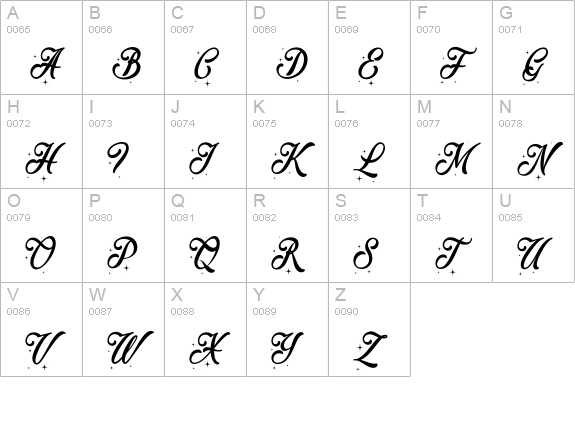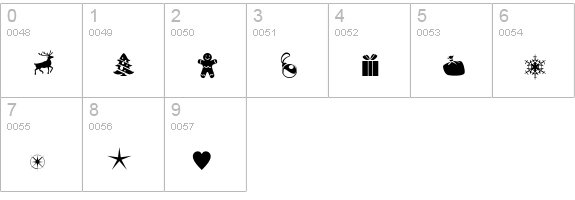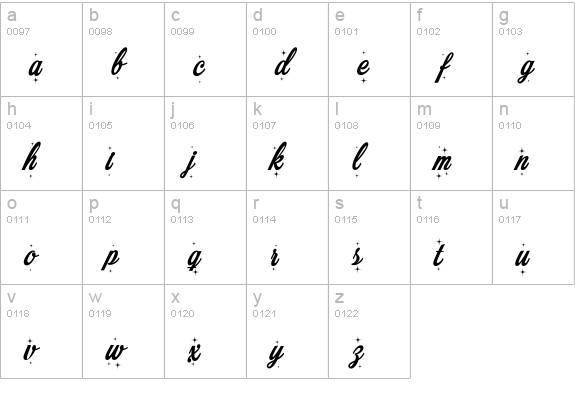
Merry Christmas Star Font Details
Introducing Merry Christmas Star font, a whimsical and festive typeface that will bring joy and cheer to your holiday designs. This font captures the essence of the Christmas season with its playful and decorative letterforms, adorned with delicate stars that twinkle like ornaments on a Christmas tree. Whether you're designing greeting cards, party invitations, or festive banners, Merry Christmas Star font will add a touch of magic and elegance to your creations. Its unique and eye-catching design will make your text stand out and create a memorable impression. The best part? Merry Christmas Star font is absolutely free! You can freely download this font at FontsMarket.com, a reputable source for high-quality and stylish fonts. With just a few clicks, you'll have access to this delightful typeface and be able to spread the holiday spirit in your designs. Not only is Merry Christmas Star font visually captivating, but it is also incredibly versatile. It can be used for both personal and commercial projects, making it the perfect choice for individuals and businesses alike. From holiday-themed websites to social media posts, this font will add a festive and joyful touch to any design. With its smooth curves, elegant strokes, and twinkling stars, Merry Christmas Star font will transport your audience into a world of holiday enchantment. Whether you're creating a winter wonderland or a cozy Christmas scene, this font will help you convey the magic and warmth of the season. Don't miss out on this opportunity to add a touch of holiday magic to your designs. Download Merry Christmas Star font for free at FontsMarket.com and let your creativity shine this Christmas season. Spread joy, love, and warmth with this enchanting typeface and make every design a celebration of the most wonderful time of the year.